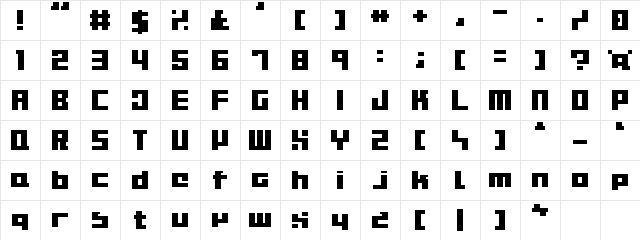
BitmapperOLDTYPE Regular
Design Context for BitmapperOLDTYPE Typeface
BitmapperOLDTYPE is rooted in pixel-grid construction, making it a natural fit for game UI, retro computing aesthetics, and digital nostalgia projects.
A natural choice for retro game titles, chiptune music branding, 8-bit UI, and digital nostalgia projects.